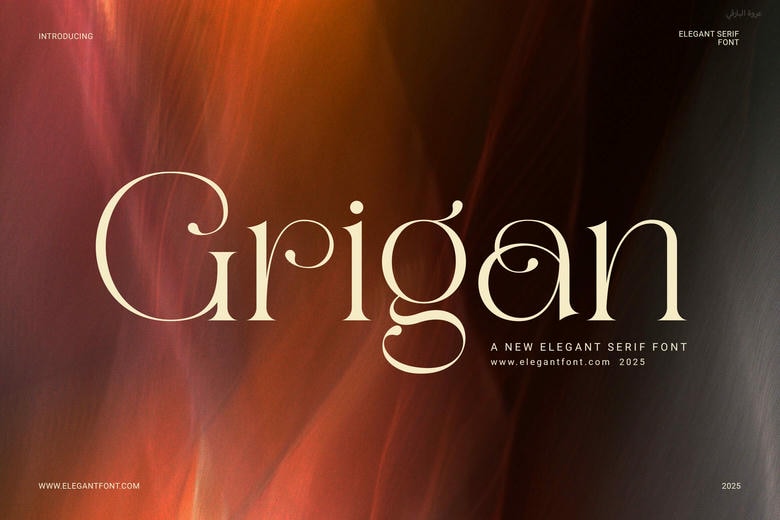
Grigan Font
Grigan is a modern style typeface of a serif. It has tidy lines and proportional figures hence ideal to support a very broad spectrum of branding requirements. Grigan is a sophisticated typeface due to well-designed letter shapes and bookish proportions. It has also functional smooth ligatures that make your text look graceful.
This makes your design more appealing without necessarily making additional efforts. This font produces a powerful and business-like touch no matter what you are designing logos, packaging, websites or magazines. Meanwhile it also makes your design recent and readable.
Grigan Serif Font